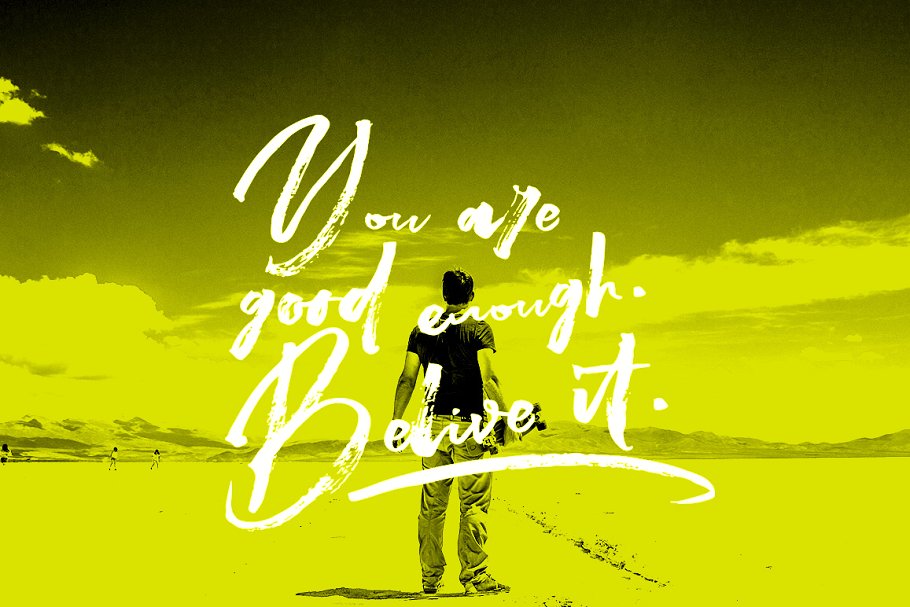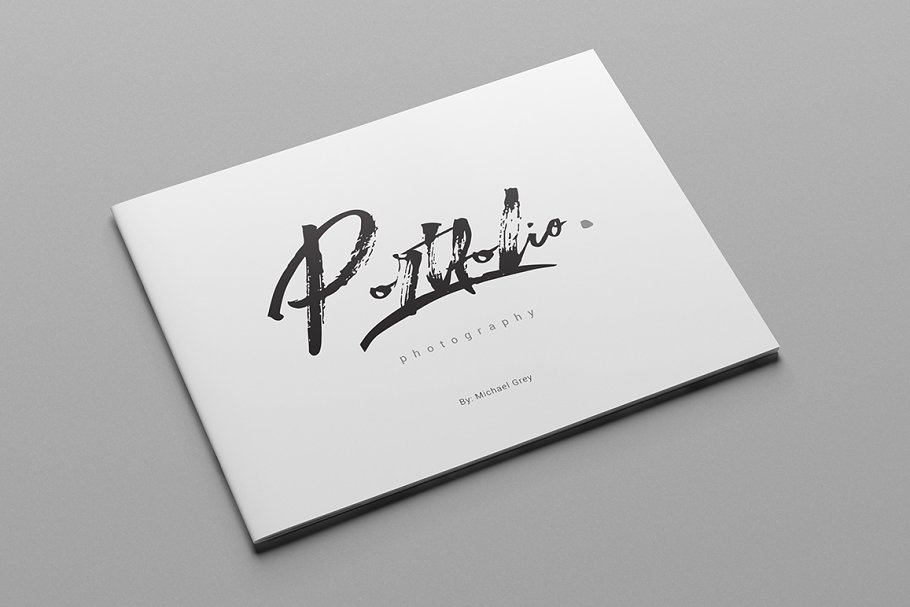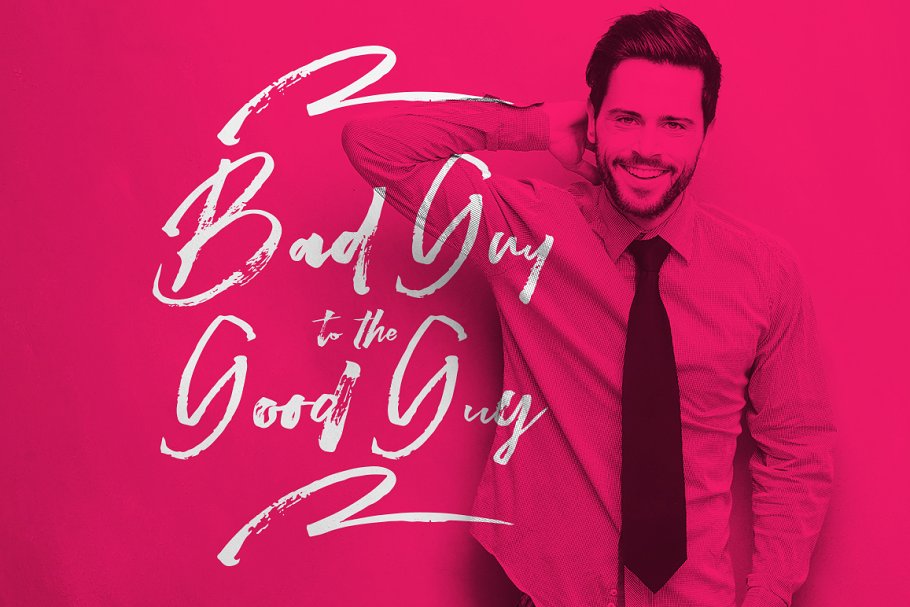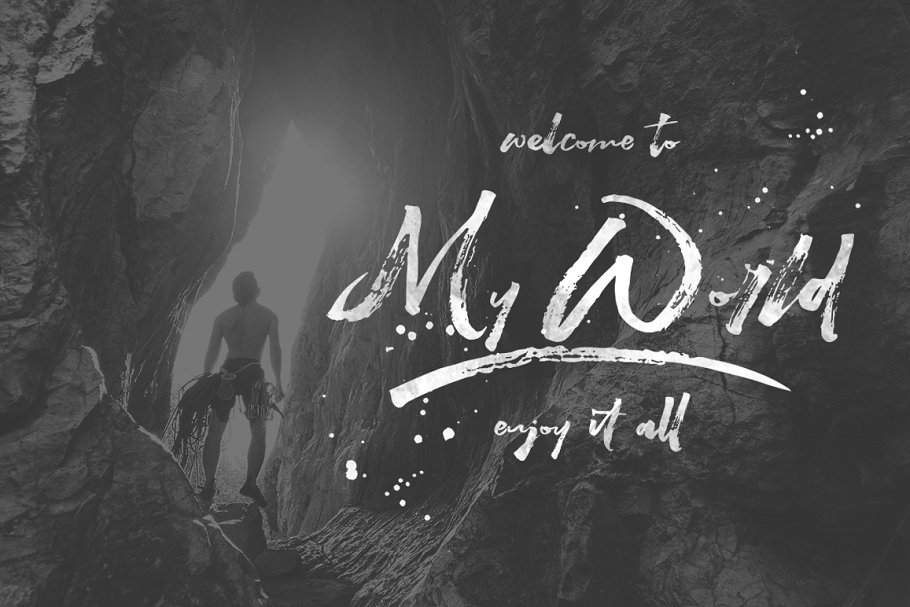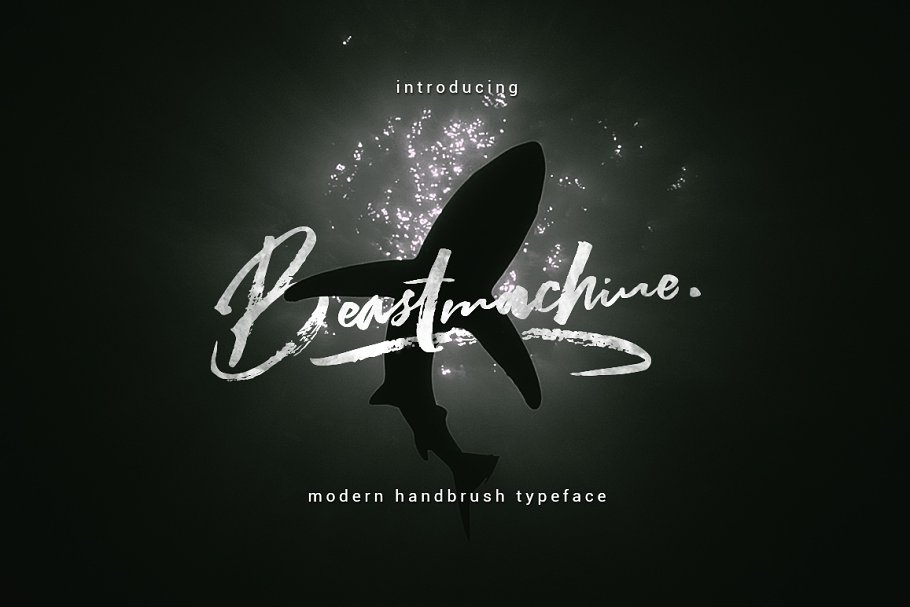
Beastmachine Brush Font
A brand new brush font. The style of handwriting and irregular but still elegant, and you will enjoy to use this font style. Introducing Beastmachine Font. Beastmachine has standard ligatures included – to give the font a more natural, scripted look when you have any double letters in your design. It also has multilingual support with accented characters for international users. Beastmachine is perfectly suited for stationery, logos, t-shirt, paper, print design, website header, photo frame, flyer, music cover, poster, image slider and much more.